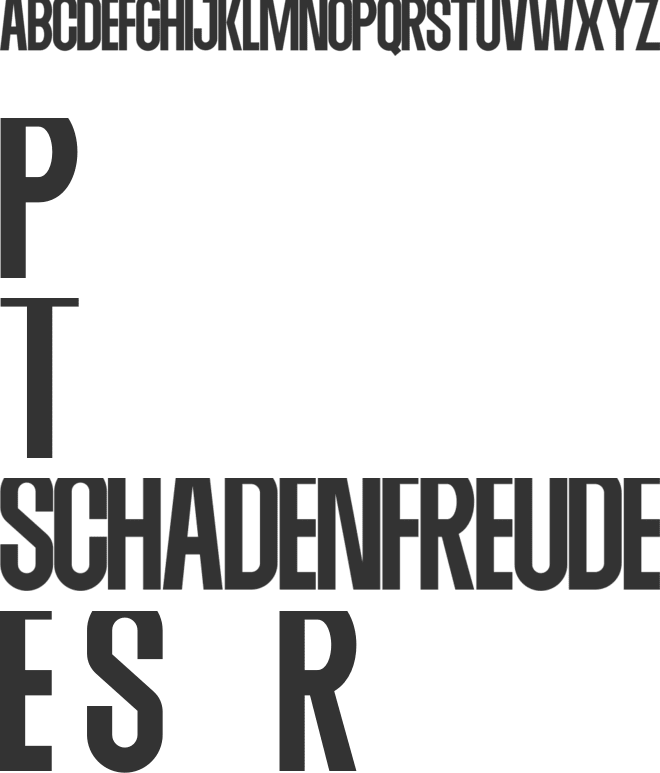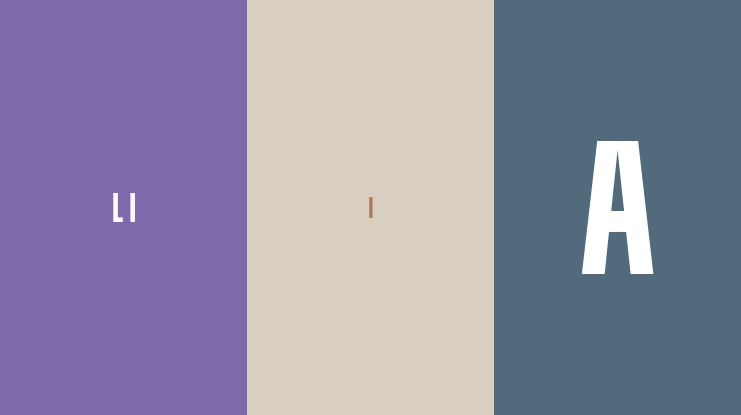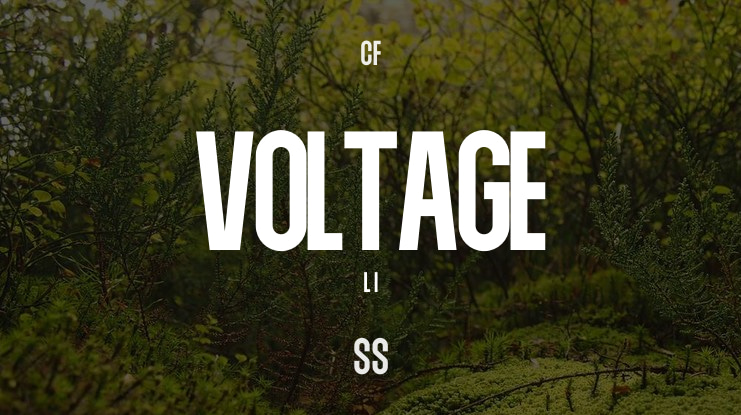
🎨 Font Name: VOLTAGE by Minimalist Art Studio
🎨 Font Description: Voltage is a tall, condensed sans serif font in Regular and Italic styles—perfect for bold headlines, modern branding, tech interfaces, and minimalist layouts; free for subscribers and built to energize your design flow.